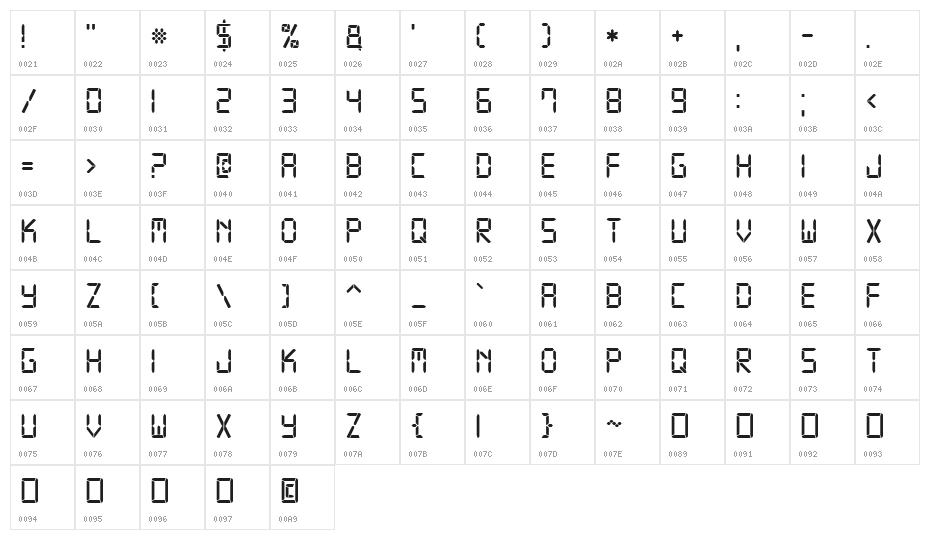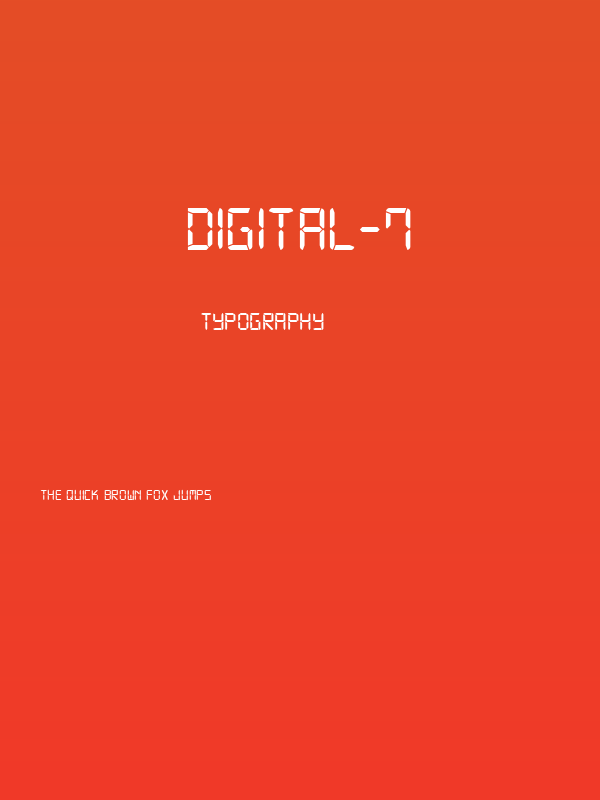
Digital-7 Font
Digital-7 Description
This font is a digital-style typeface that mimics the appearance of seven-segment displays commonly found in digital clocks and electronic devices. Each character is composed of straight lines and angles, creating a geometric and technical look. The font maintains a consistent width across all characters, giving it a monospaced appearance. Its design is highly legible and functional, ideal for conveying a modern, technological aesthetic. The characters are evenly spaced, ensuring clarity and readability, even at smaller sizes. This font is perfect for projects that require a futuristic or digital theme.
| Use Case | Headlines, Digital displays, Tech interfaces |
| Proposed Projects | Ideal for digital clocks, tech-themed posters, electronic device interfaces, and futuristic branding. |